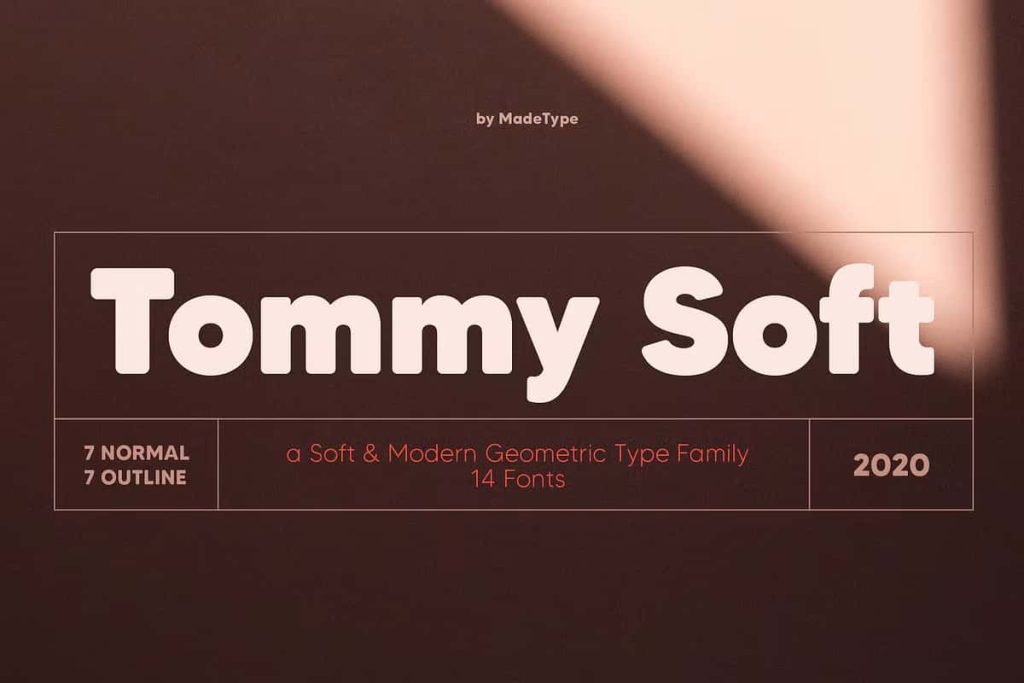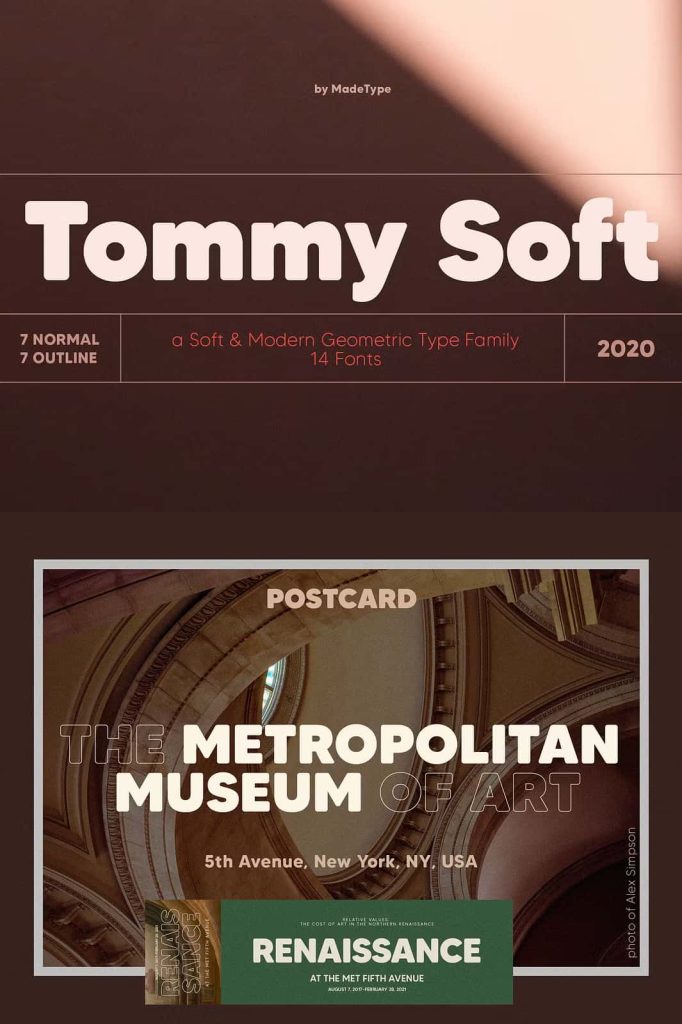
MADE Tommy Soft will perfect for many project: fashion, magazines, logo, branding, photography, invitations, wedding invitation, quotes, blog header, poster, advertisements, postcard, book, websites, etc.